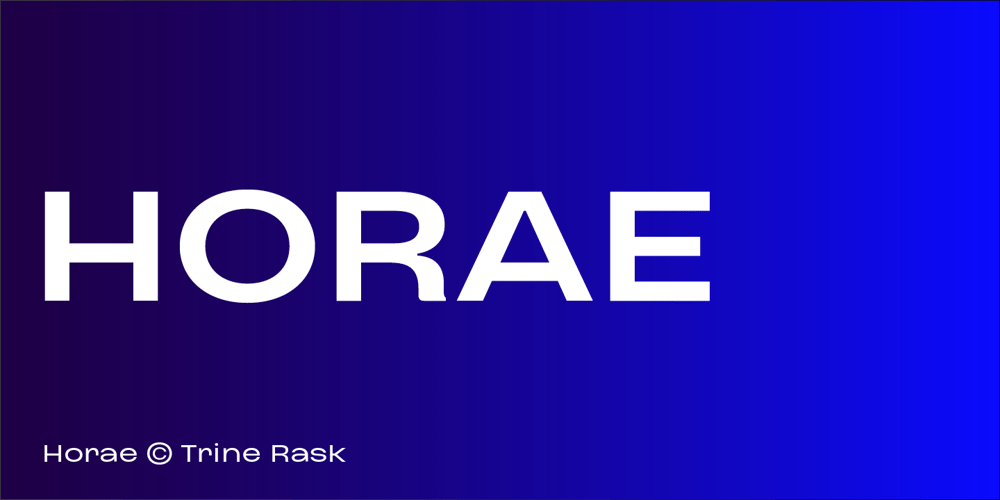
Horae
Horae font
Horae Font Family was designed by Trine Rask and published by Trine Rask. Horae contains 7 styles and family package options. Horae is a curvy type family with a lot of tension & toughness. A display typeface in seven weights that keeps the space from Thin to Bold. It’s proportional, but you can change the weight without changing the layout in ex a headline or in a great composition. It’s compact with short extenders, but wide & remarkable.Also available as variable font.